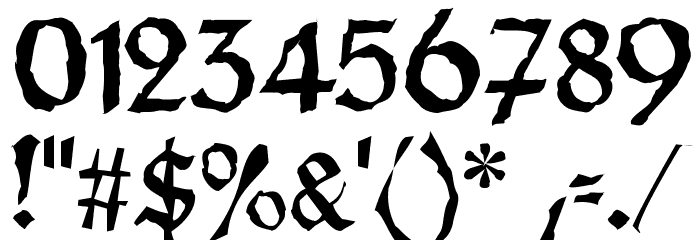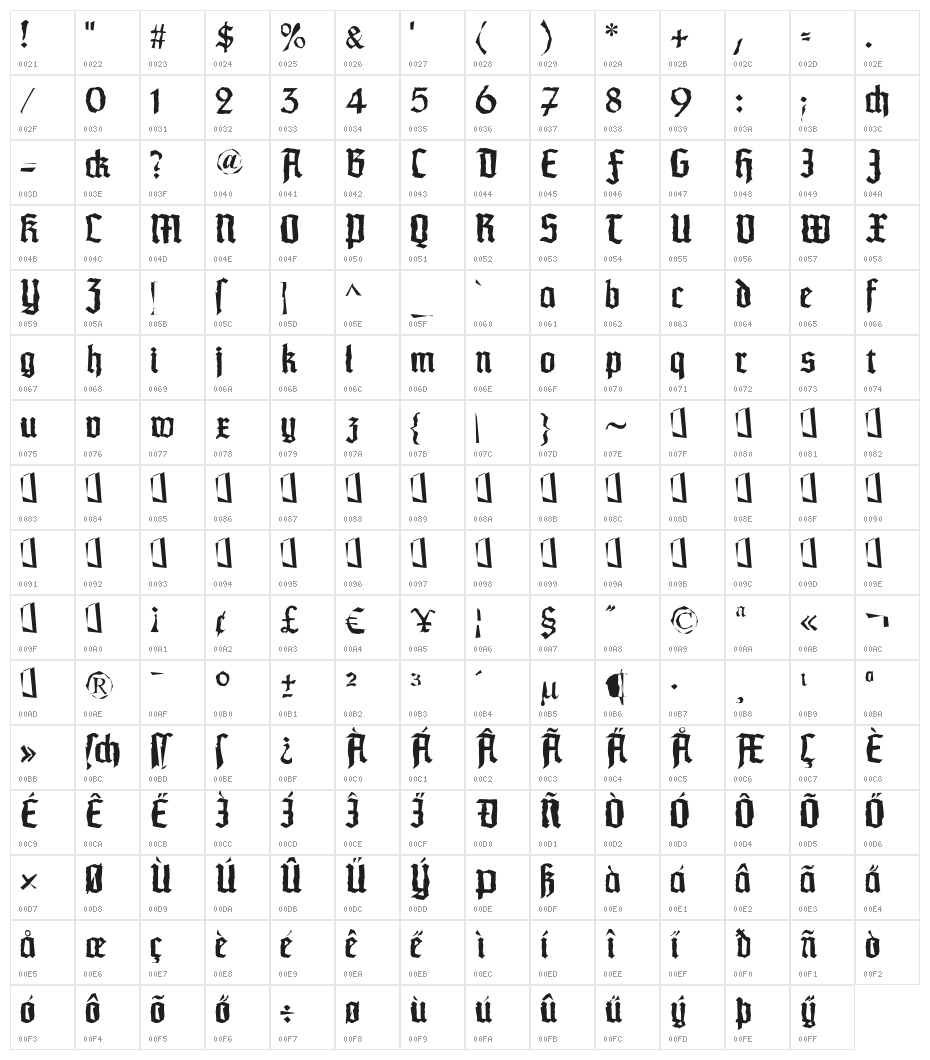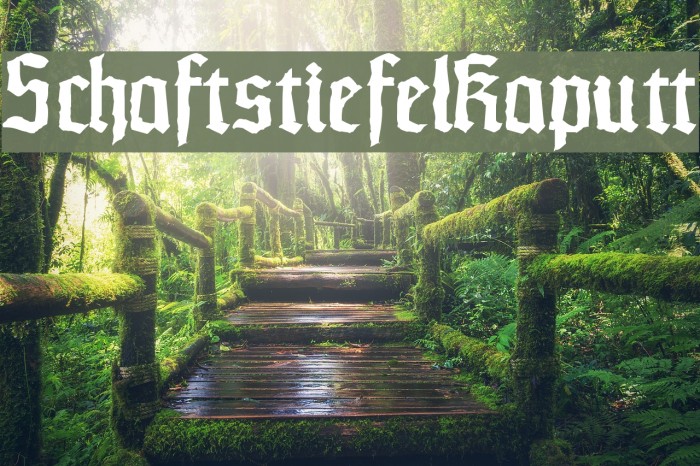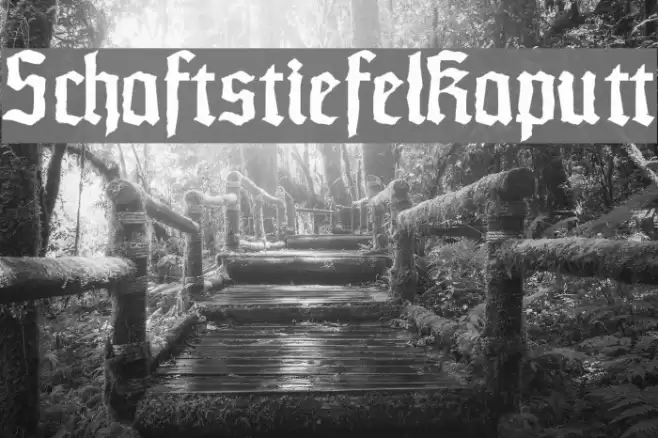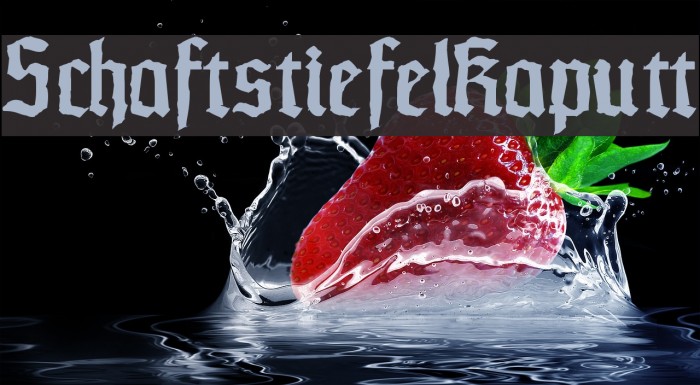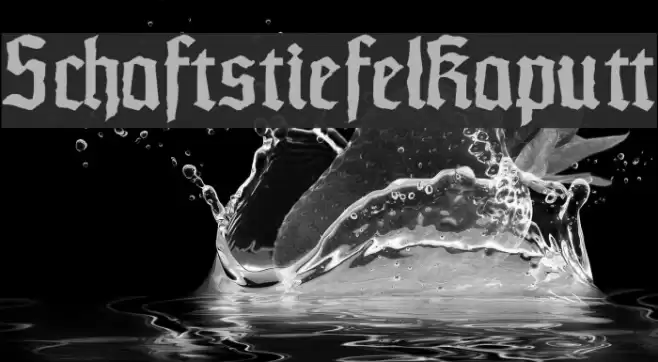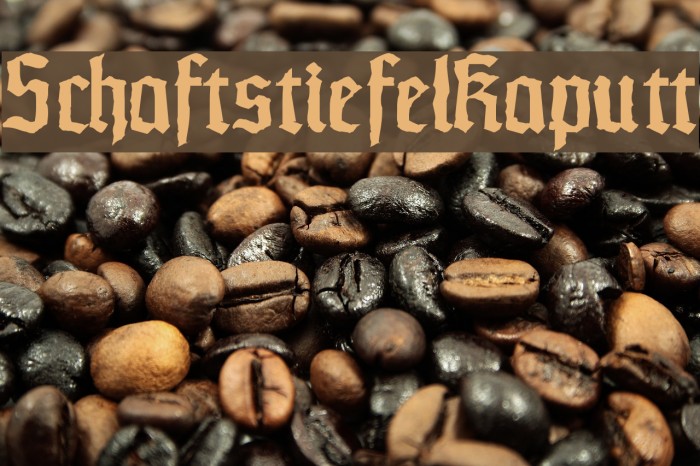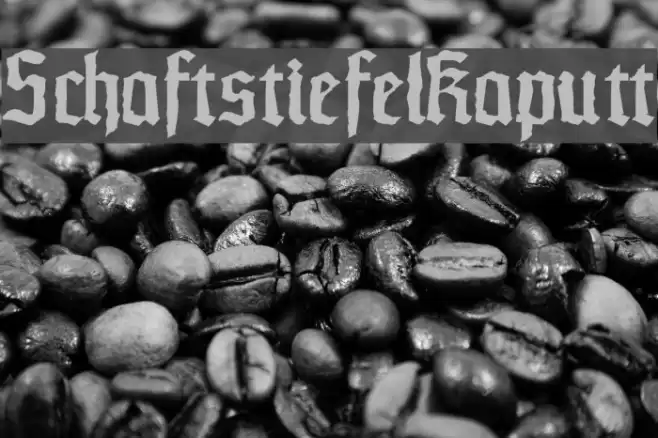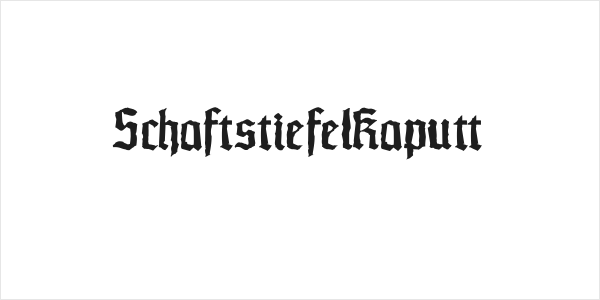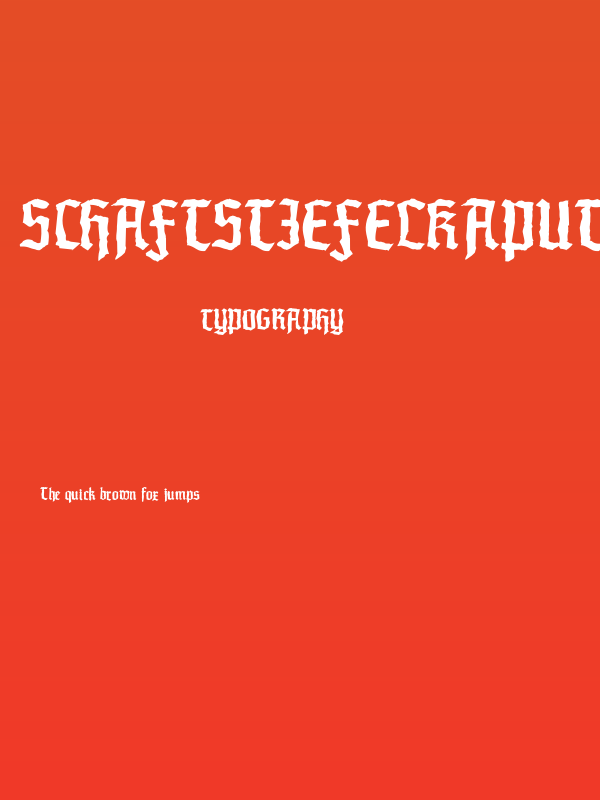
SchaftstiefelKaputt Font
SchaftstiefelKaputt Description
This font features a bold and dramatic style reminiscent of traditional blackletter typefaces. The characters are sharply angular with thick strokes and pointed edges, creating a sense of historical gravitas and formality. The uppercase and lowercase letters maintain a consistent design, with intricate details that enhance their visual impact. Numbers and special characters follow the same aesthetic, ensuring a cohesive look across all text elements. The font's strong presence makes it suitable for projects requiring a touch of elegance and tradition.